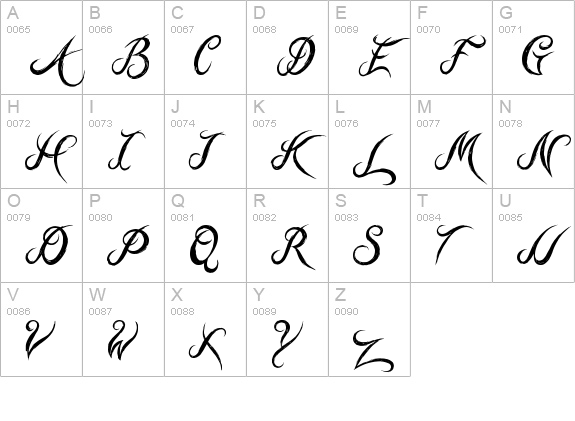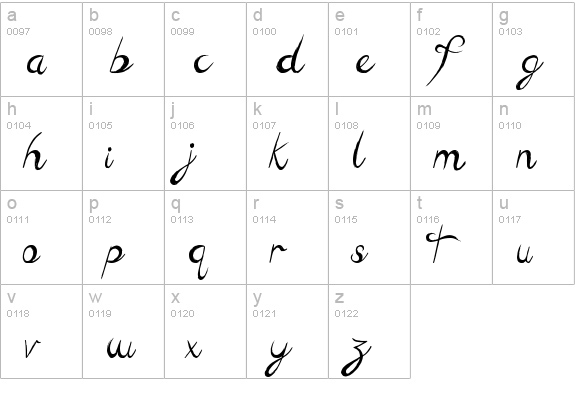
Switched at Birth Font Details
Introducing Switched at Birth font, an exquisite typeface that will captivate your imagination and add a touch of elegance to your projects. This font is not just any ordinary font, it is a work of art meticulously crafted to perfection. Switched at Birth font boasts a unique and distinctive style that effortlessly blends modern sophistication with a hint of vintage charm. Its graceful curves and delicate lines create a harmonious balance, making it a versatile choice for a wide range of design applications. Whether you're designing logos, invitations, posters, or creating stunning branding materials, Switched at Birth font will elevate your work to new heights. Its timeless appeal will resonate with your audience, leaving a lasting impression that is sure to stand out from the crowd. But what sets Switched at Birth font apart is not just its remarkable aesthetics - it's the fact that it is freely available to download at FontsMarket.com. Yes, you read that right. This exceptional font can be yours without any cost, allowing you to unleash your creativity without any restrictions. So why wait? Embrace the beauty of Switched at Birth font and unlock a world of possibilities for your design projects. Download it now at FontsMarket.com and let your imagination run wild. Experience the freedom of creativity with Switched at Birth font and witness your designs come to life like never before.